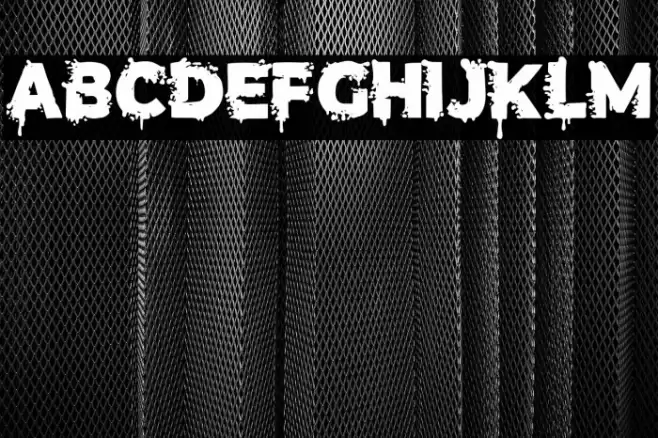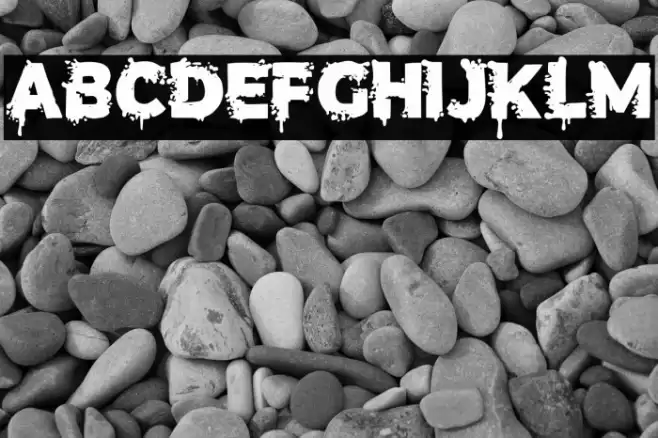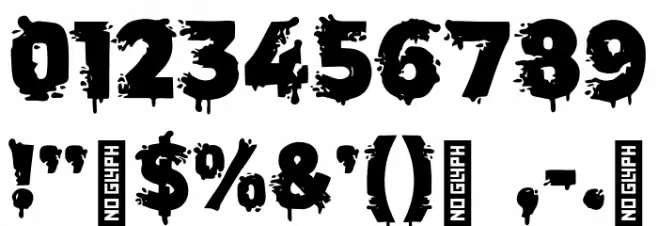
Terror Letter Font
Terror Letter Description
This font features a bold, distressed style with a horror-themed aesthetic. The characters appear as if they are dripping or splattered, reminiscent of ink or blood, which gives it a dramatic and eerie appearance. The uppercase and lowercase letters maintain a consistent design, with jagged edges and irregular shapes that enhance the unsettling feel. Numbers and special characters follow the same theme, ensuring a cohesive look across all text. This font is perfect for creating a spooky or intense atmosphere in design projects.
A bold, distressed font with a horror-themed, dripping effect from Uncategorized fonts.
- Font: Terror Letter
- Proposed Projects: Ideal for Halloween posters, horror movie titles, themed event invitations, or any project requiring a spooky or intense visual impact.